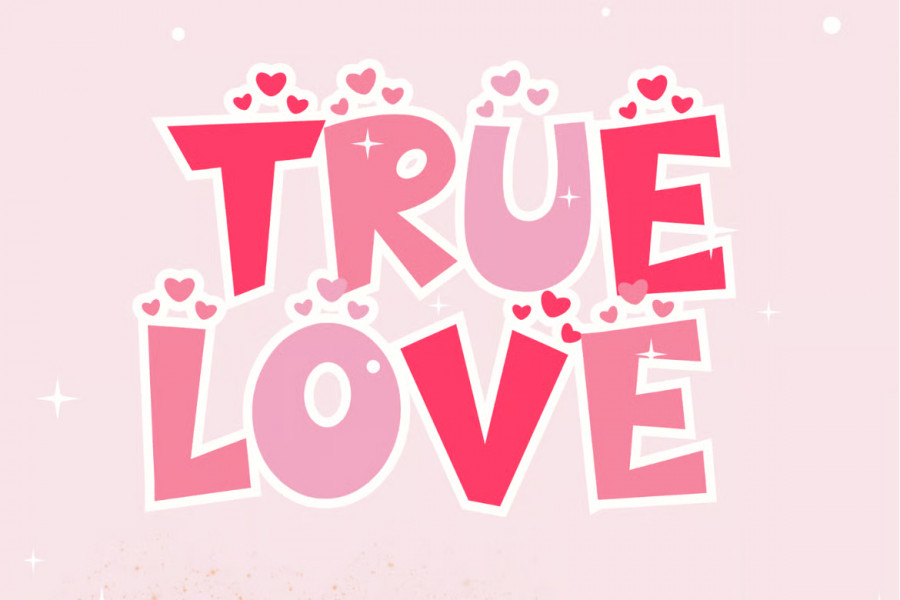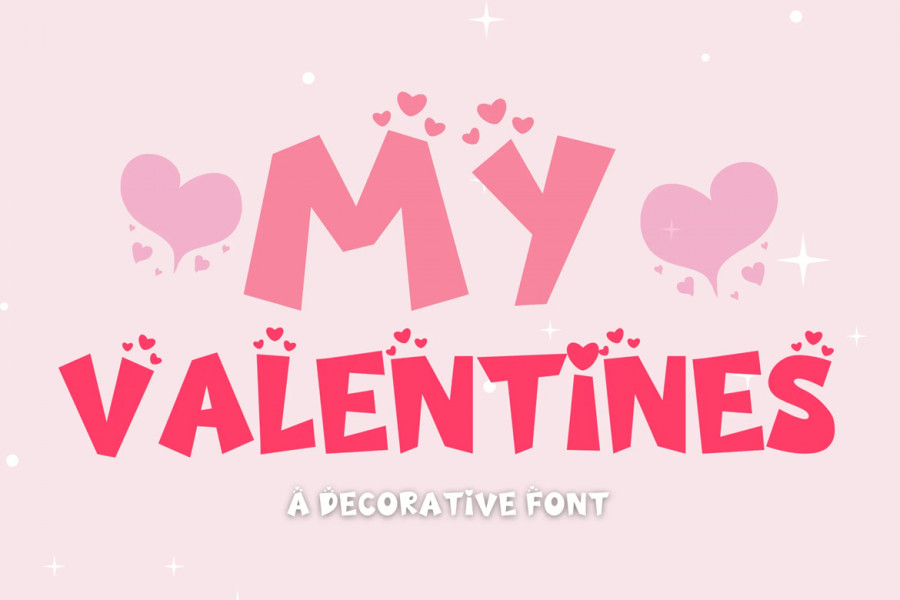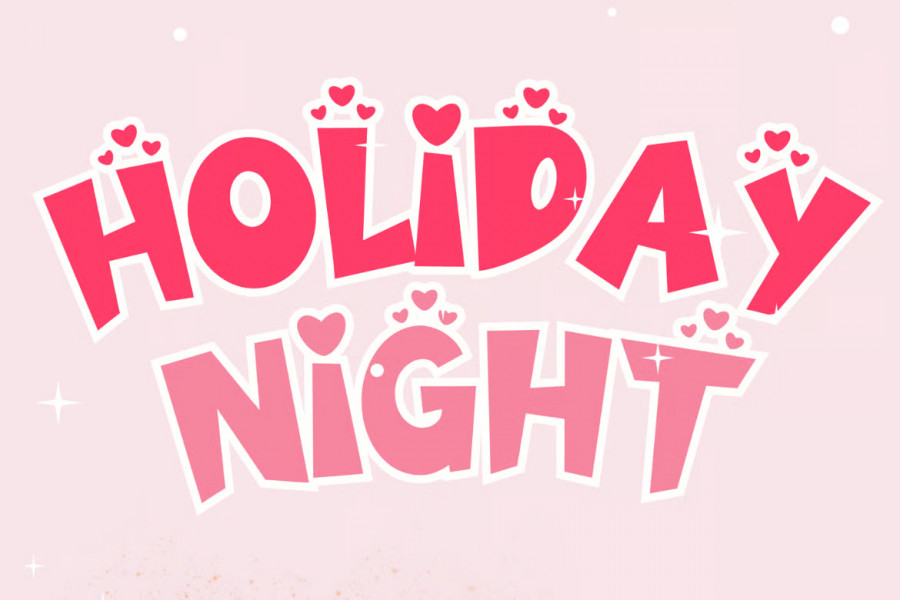
My Valentine’s – Cute Handwritten Font My Valentine’s is a cute handwritten font designed to bring warmth, playfulness, and authenticity to your creative projects. With its charming and friendly letterforms, this font is perfect for logos…
My Valentine’s is a cute handwritten font designed to bring warmth, playfulness, and authenticity to your creative projects. With its charming and friendly letterforms, this font is perfect for logos, branding, blog posts, advertisements, invitations, greeting cards, planners, photo albums, decorations, and many other design uses. Ideal for both digital and print projects, My Valentine’s adds a personal and joyful touch to any design.
Features:
Cute handwritten font style
Playful and authentic character design
Suitable for branding, invitations, and creative projects
Works well for print and digital use